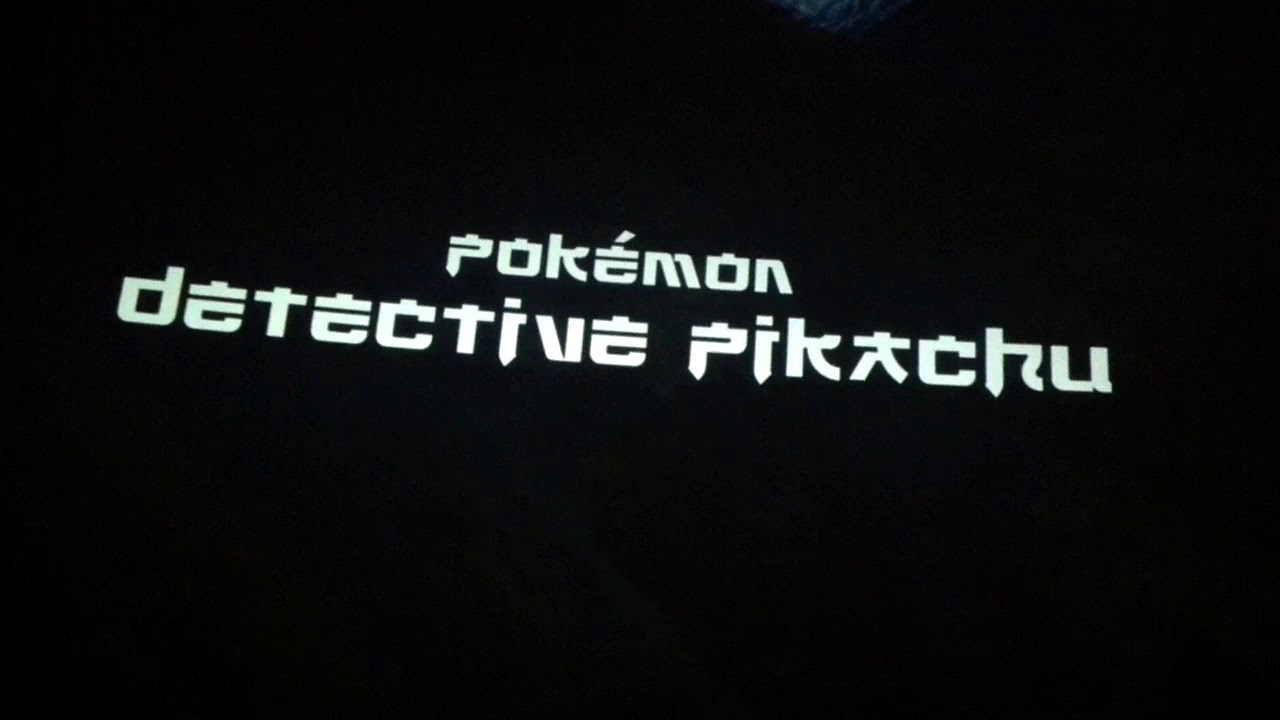
does anybody know the name of the font used in the opening of the detective pikachu movie? It is some kind of japanese styled latin font.
These two fonts are virtually identical to each other and are very close to the title font. The only differences are that they are lighter in weight and have square dots on many of the characters. Also, the top bar of the A does not cross the apex, as it does in the Pikachu title above.